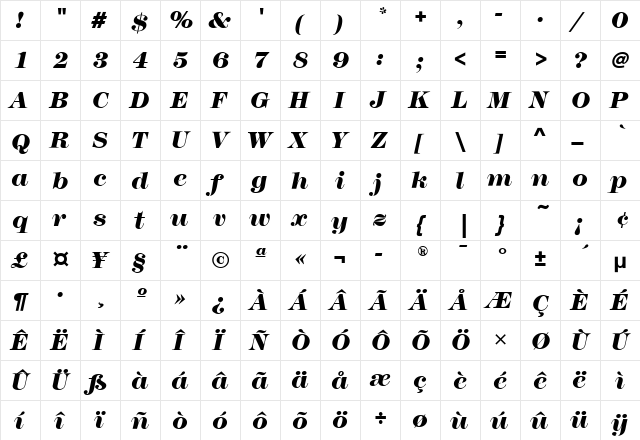
ModernTwoSixtnMdITC Bold Italic Font Preview
Design Context for ModernTwoSixtnMdITC Typeface
ModernTwoSixtnMdITC takes a measured approach to typography — its balanced proportions and neutral character make it a reliable workhorse for both digital and print work. The slanted form adds forward momentum and visual energy. The heavy weight commands attention and anchors typographic hierarchies.
Pro Tip: Try ModernTwoSixtnMdITC for annotation and caption copy alongside an upright companion — the contrast in angle creates a dynamic but ordered typographic system.